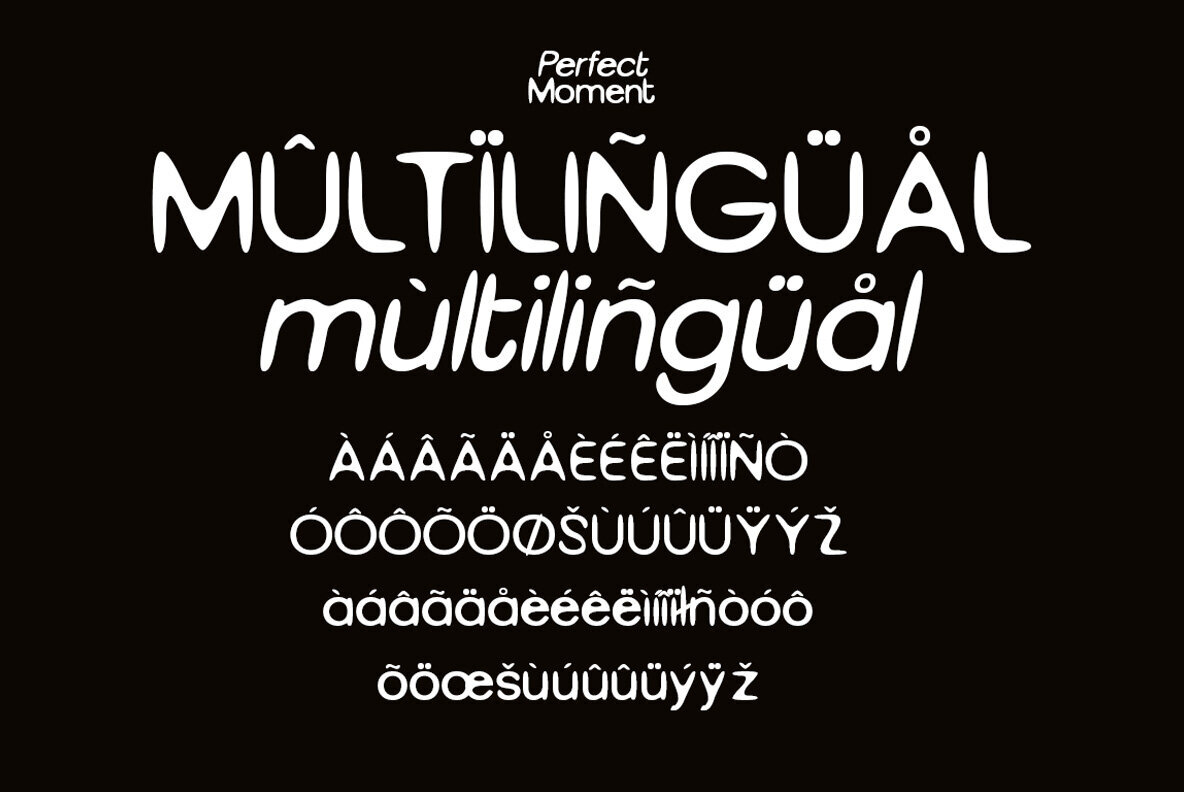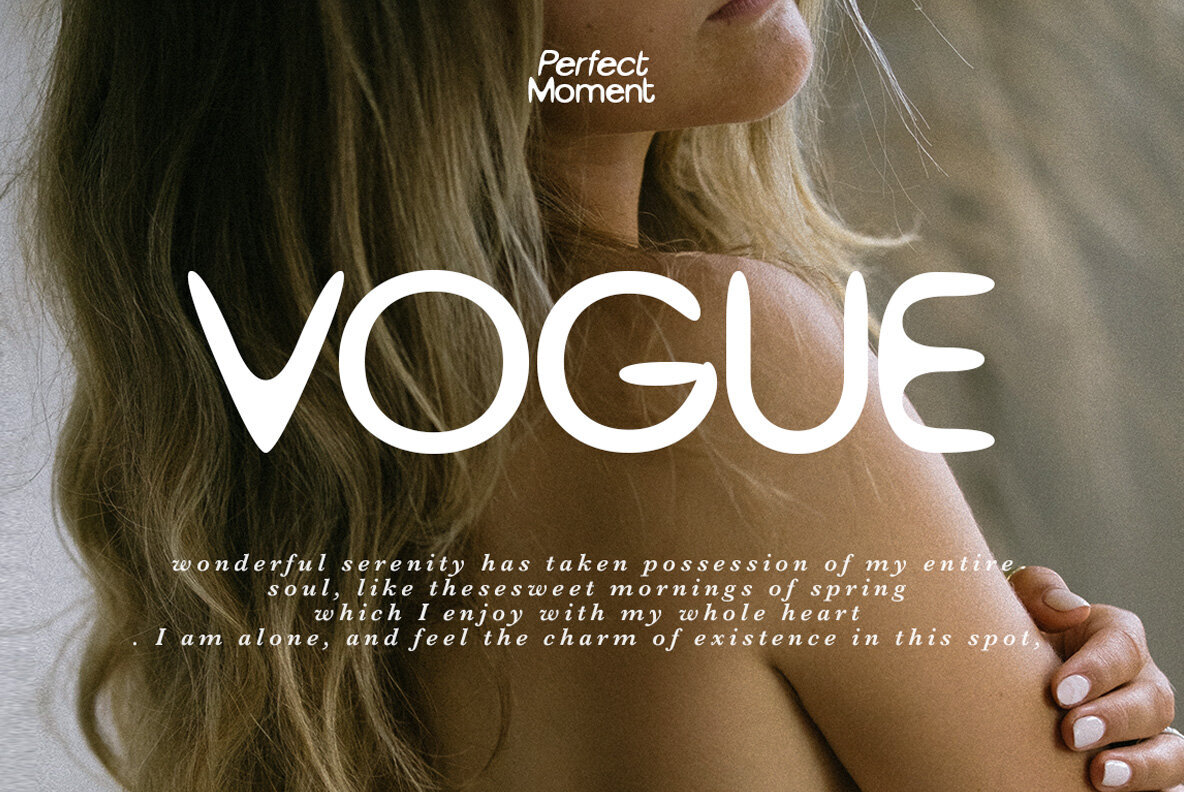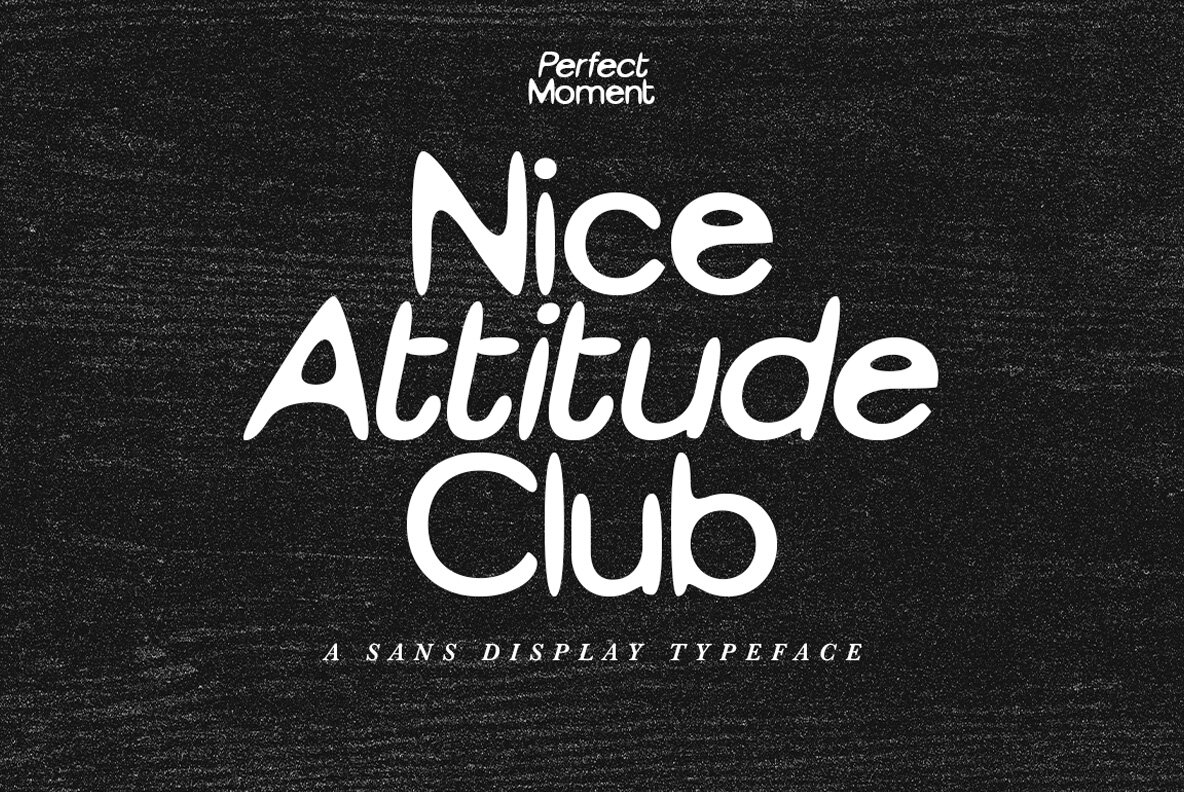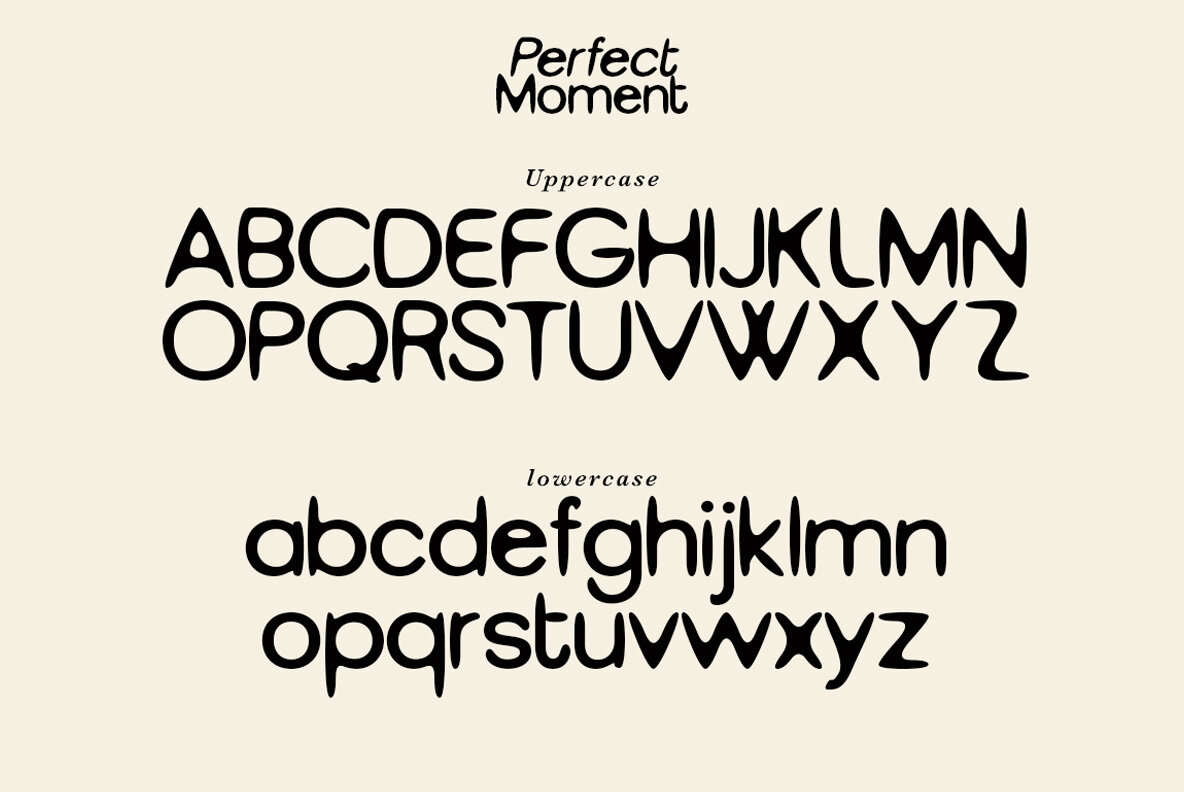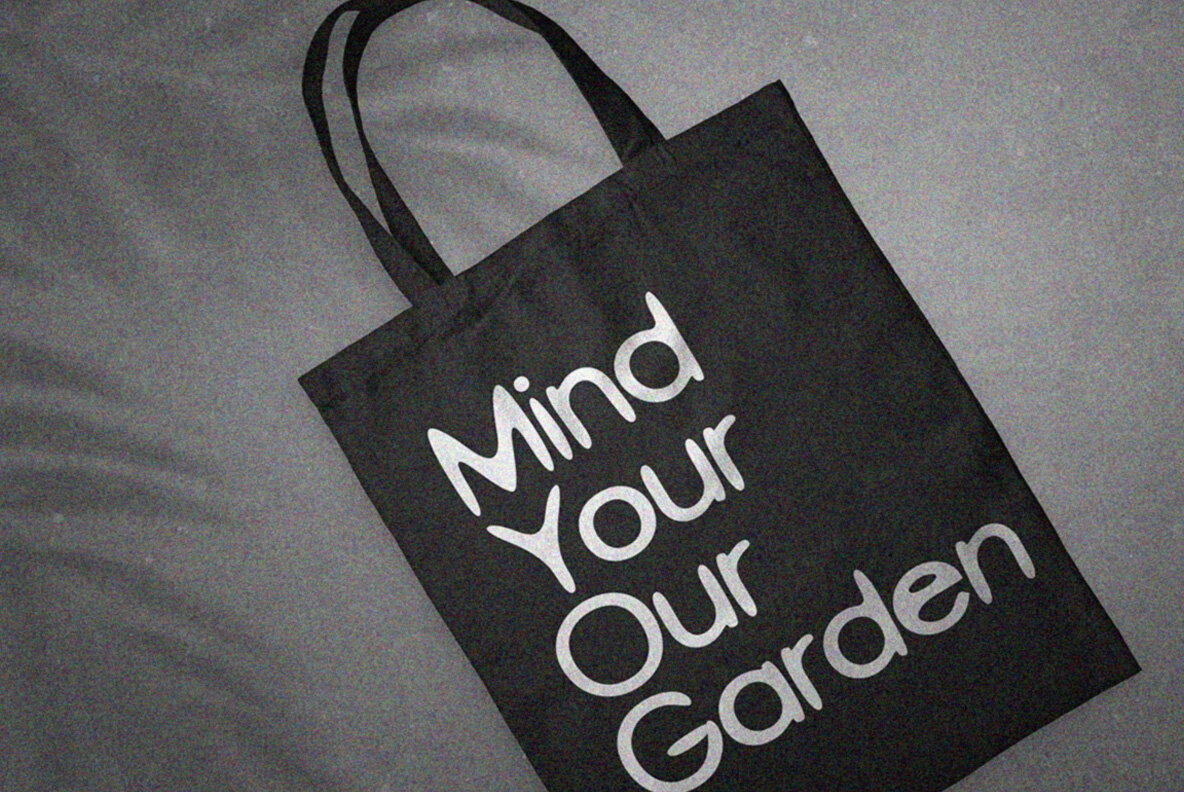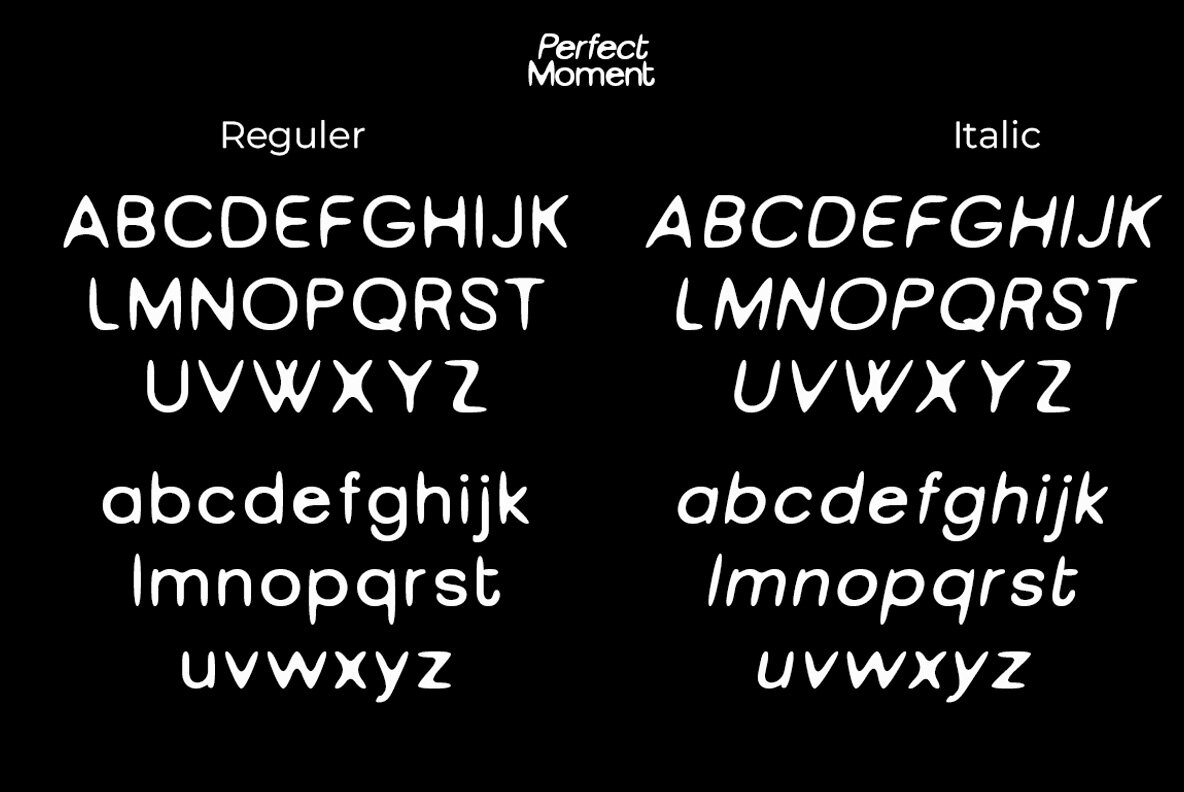
Perfect Moment Font
Perfect Moment Regular
Perfect Moment is a classic and simple sans serif font created in a random and freestyle. It is suitable for logotypes, headlines, corporate identity, brand identity, the apparel industry, posters, music, movies, games, magazines, books, comics, cartoons, YouTube, Instagram, websites, or any of your creative design projects.